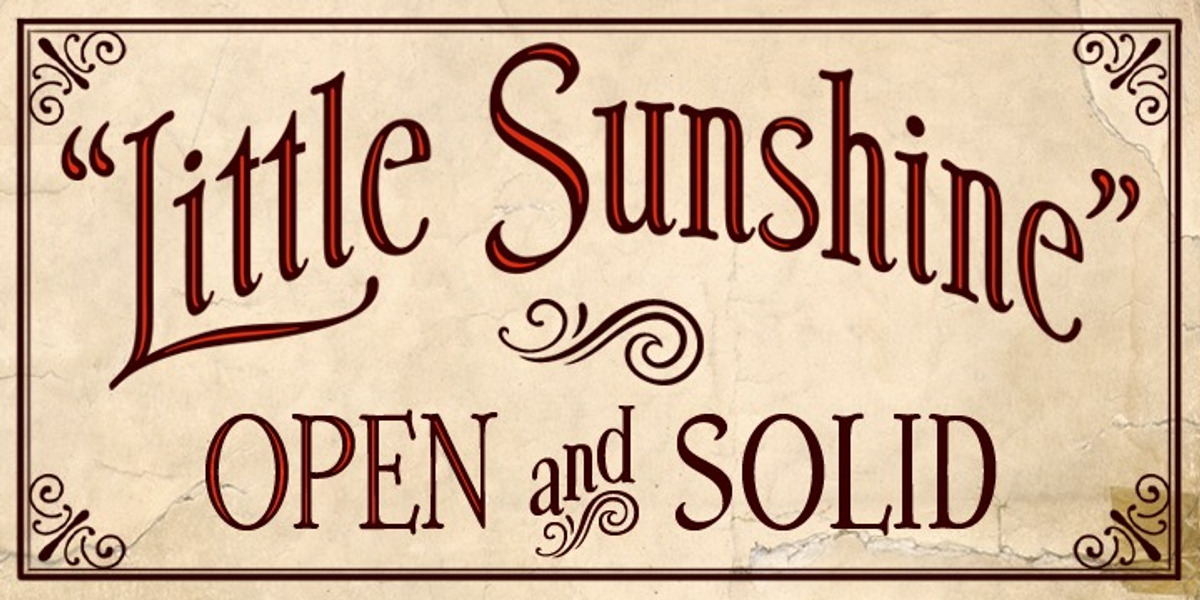
Little Sunshine
Little Sunshine is a vintage-inspired display serif font based on lettering from an 1883 songbook. It features tight letter spacing and skinny characters, creating a distinctive and original look. The font includes ligatures, stylistic alternates, and old style numerals, staying true to its historical origins while offering modern functionality.